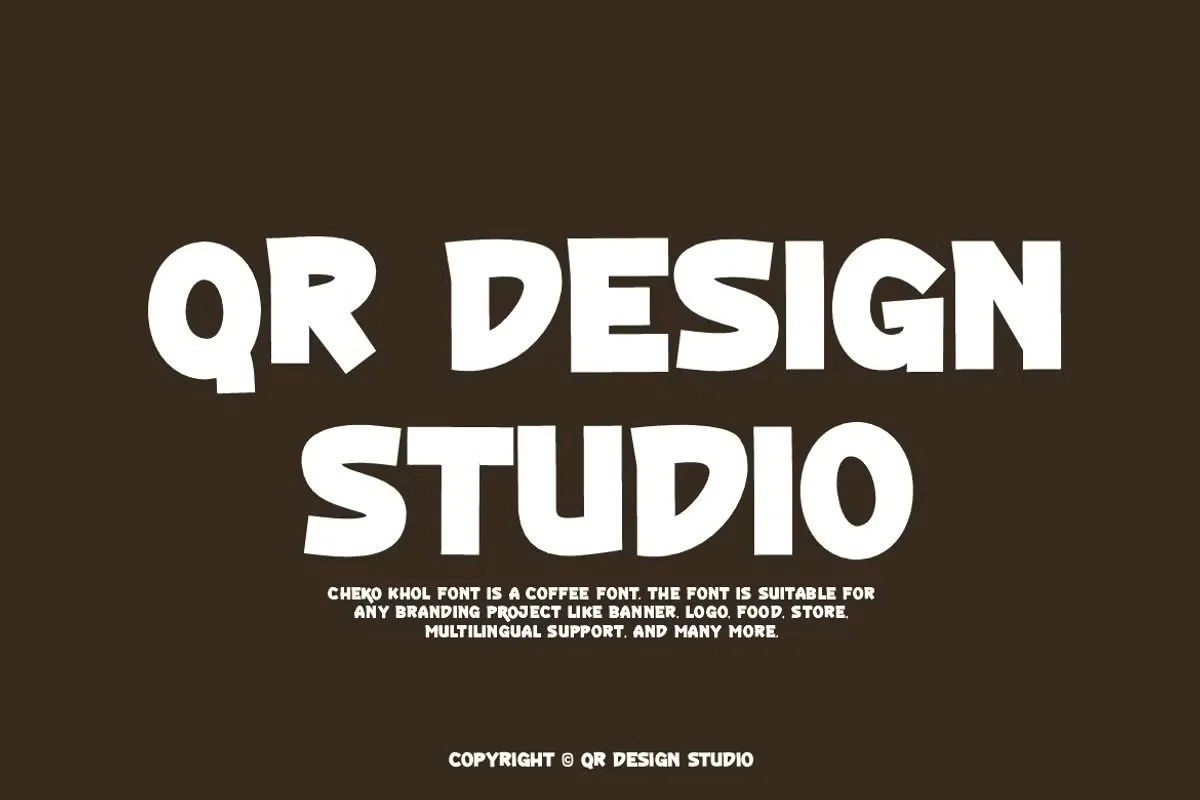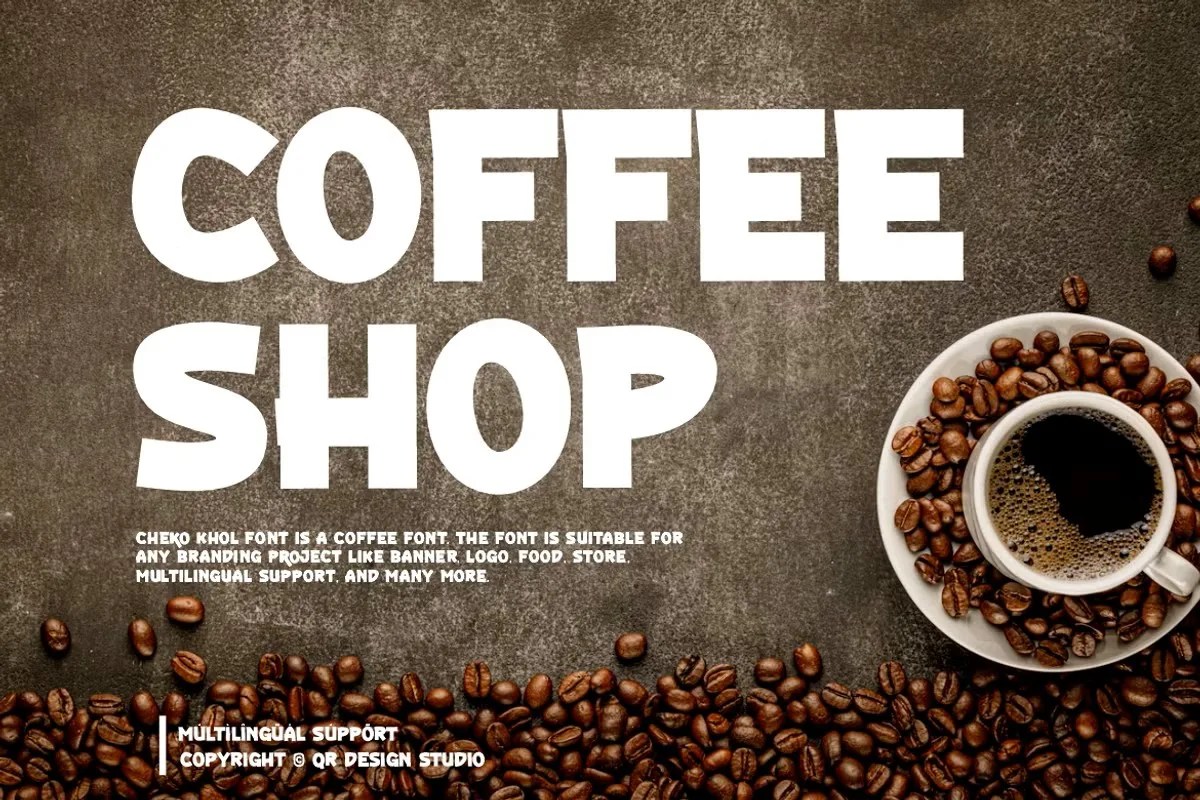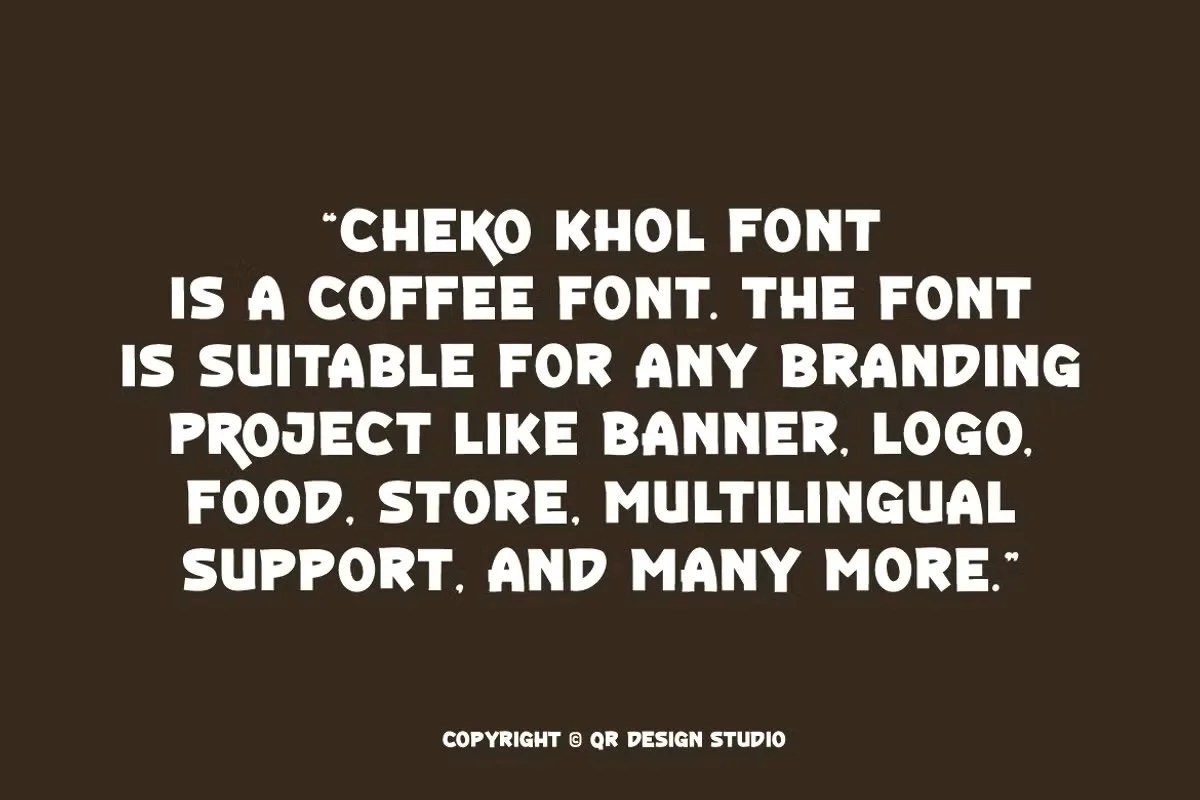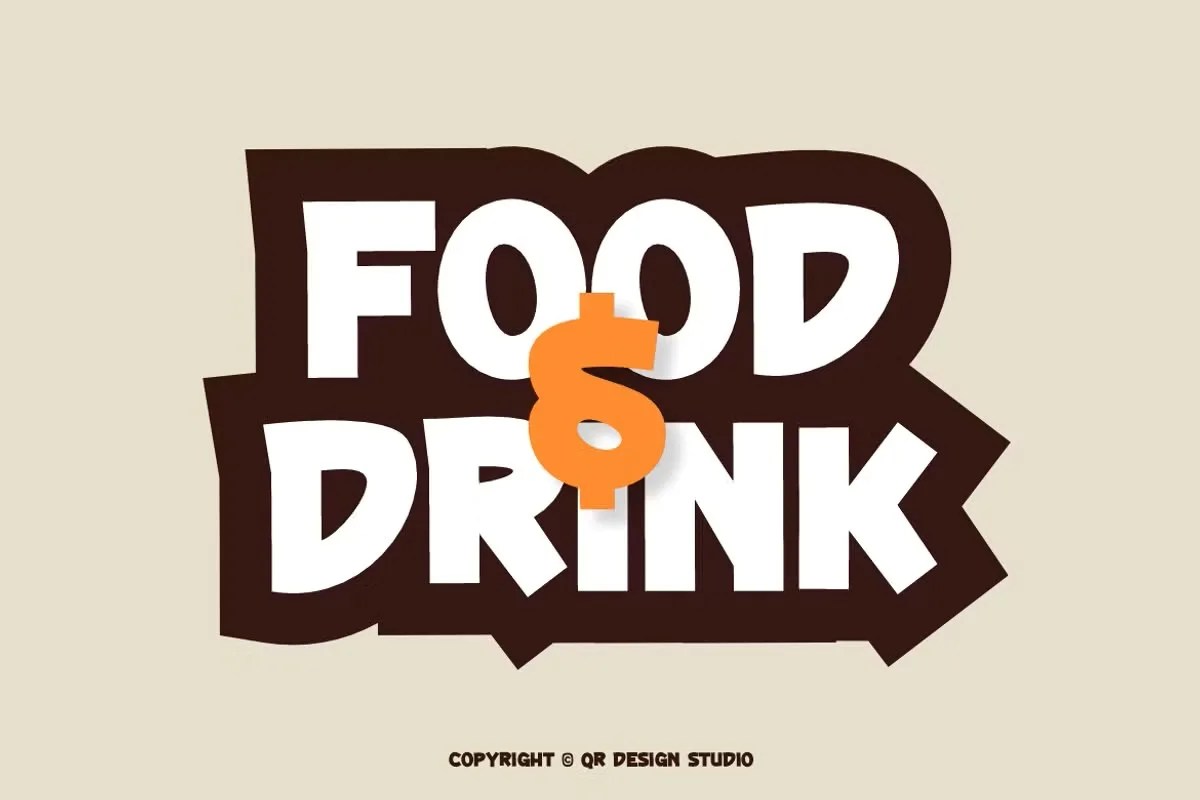
Cheko Khol by QR Design Studio is a modern and impactful sans serif font designed with strong, geometric principles. With its clean lines and confident, blocky letterforms, this typeface is perfect for designers looking to make a bold statement. It’s an excellent choice for creating attention-grabbing headlines, contemporary logos, and stylish branding projects.
Whether you’re working on a tech startup’s identity, a powerful poster, or sleek website headers, Cheko Khol delivers clarity and a strong visual presence, ensuring your message stands out with a modern, sophisticated edge.
• Modern and bold sans serif style
• Features strong geometric letterforms
• Includes uppercase, lowercase, numbers, and punctuation
• Ideal for headlines, logos, and posters
• Clean and highly readable composition
• Designed for impactful branding
Cheko Khol